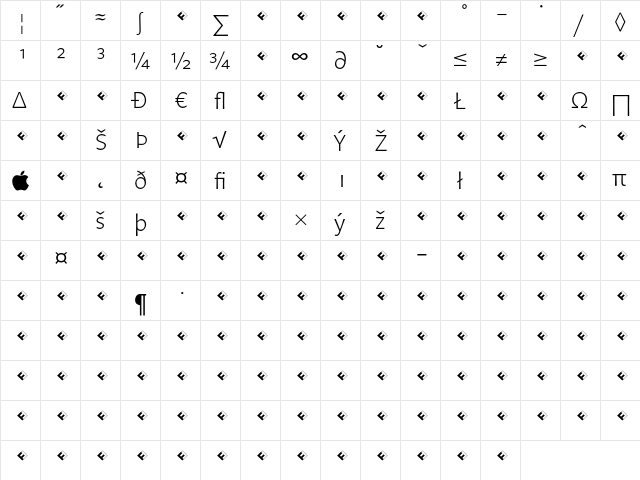
Legato Light Expert
Design Context for Legato Typeface
Legato is a composed and adaptable typeface that performs quietly and consistently across a wide range of design contexts. Its slender proportions lend an understated elegance to any composition.